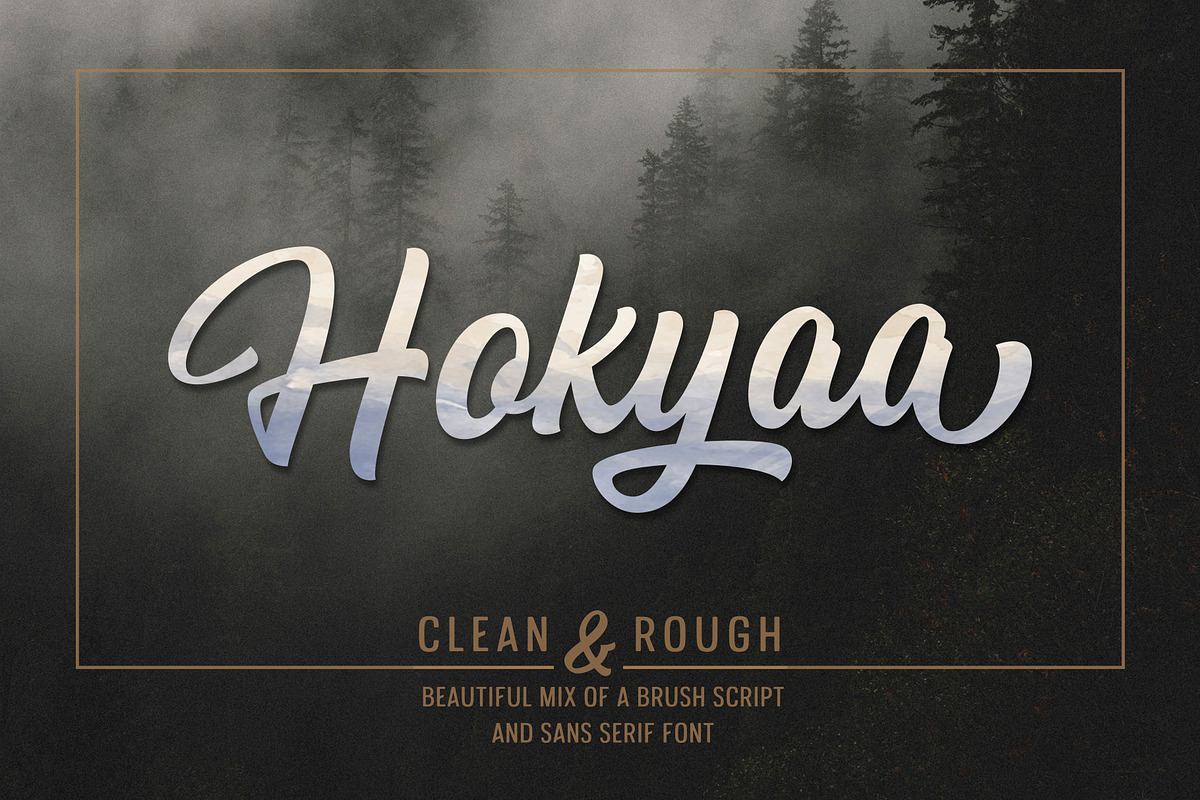
Hokyaa Font Free Download is a calligraphic typeface that combines elegant brush strokes with a complementary sans-serif, offering versatility for various design projects. Ideal for logotypes, branding, wedding invitations, posters, packaging, and merchandise, Hokyaa adds a handcrafted and sophisticated touch to your creations.
Designed by Locomotype, Hokyaa features both script and sans-serif styles, each available in clean and press versions. The script variant includes numerous alternates, ligatures, and swashes, enabling you to craft beautiful lettering without extensive knowledge of calligraphy.